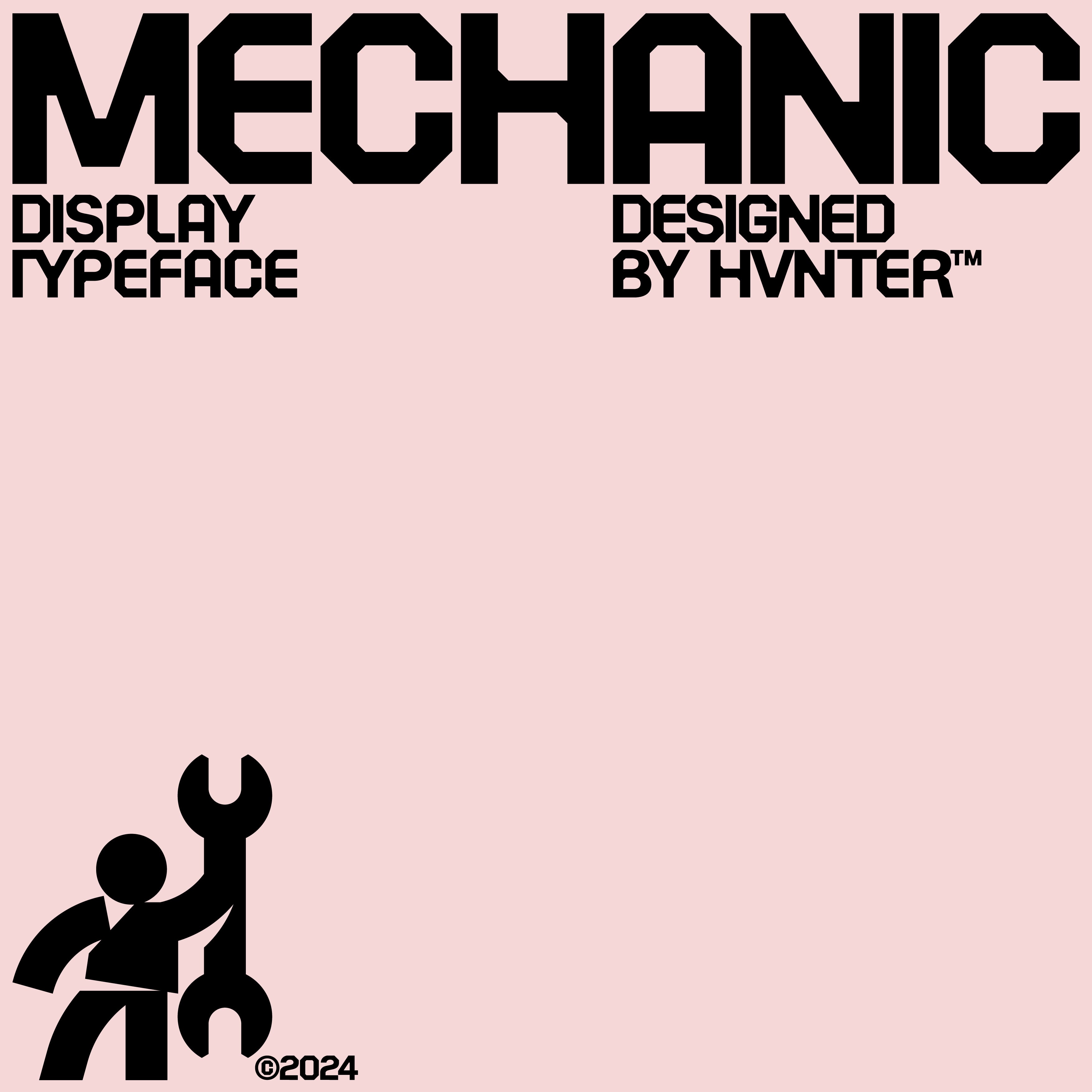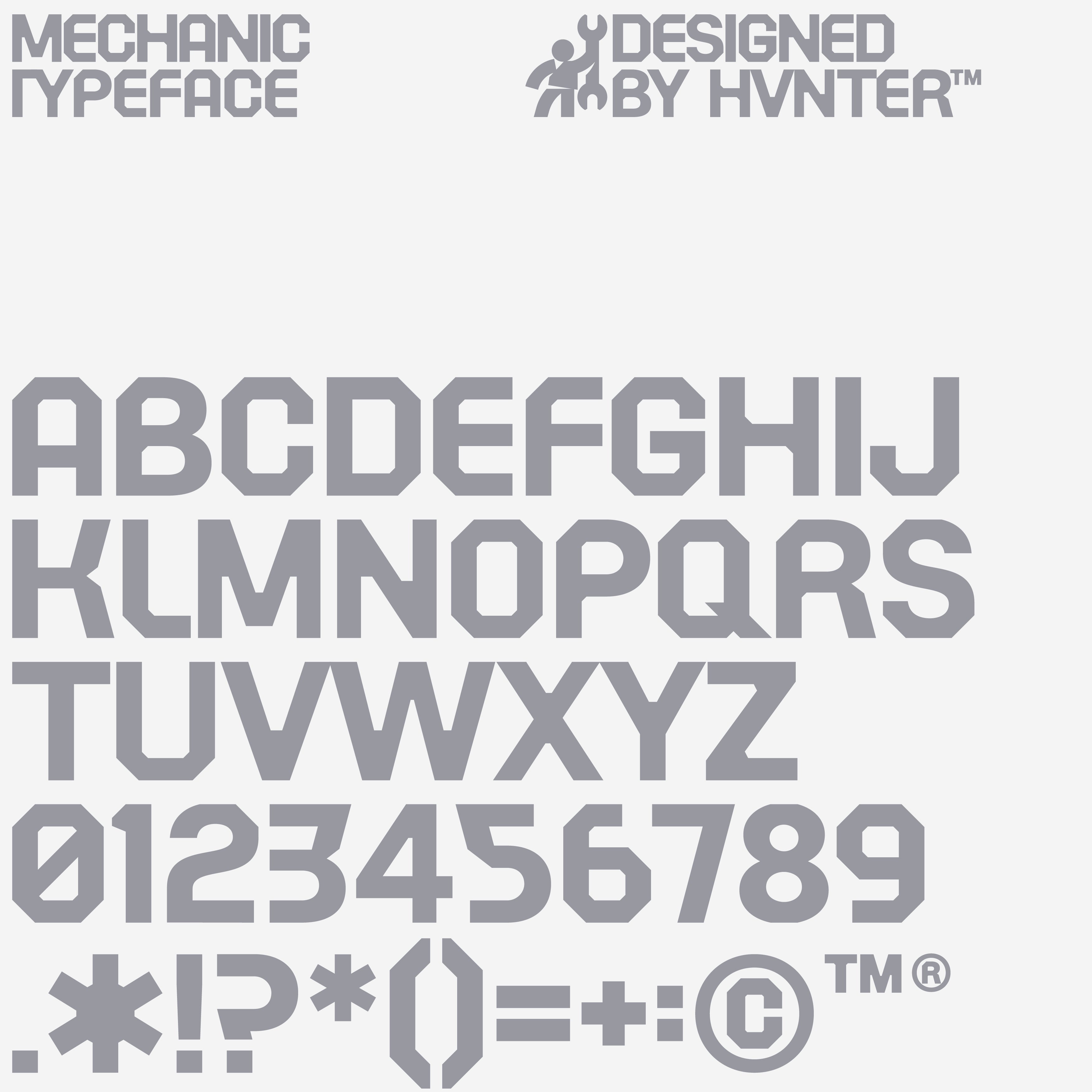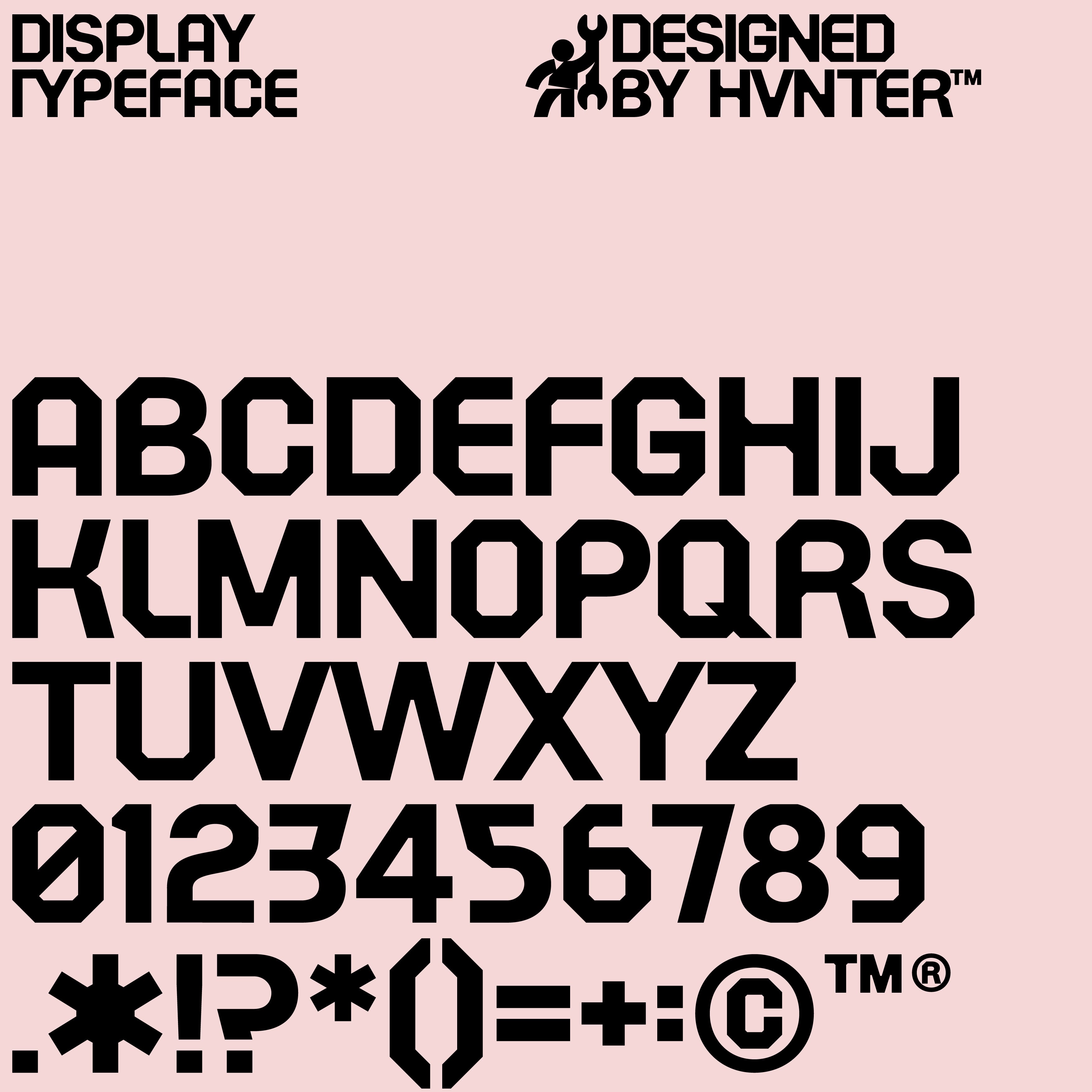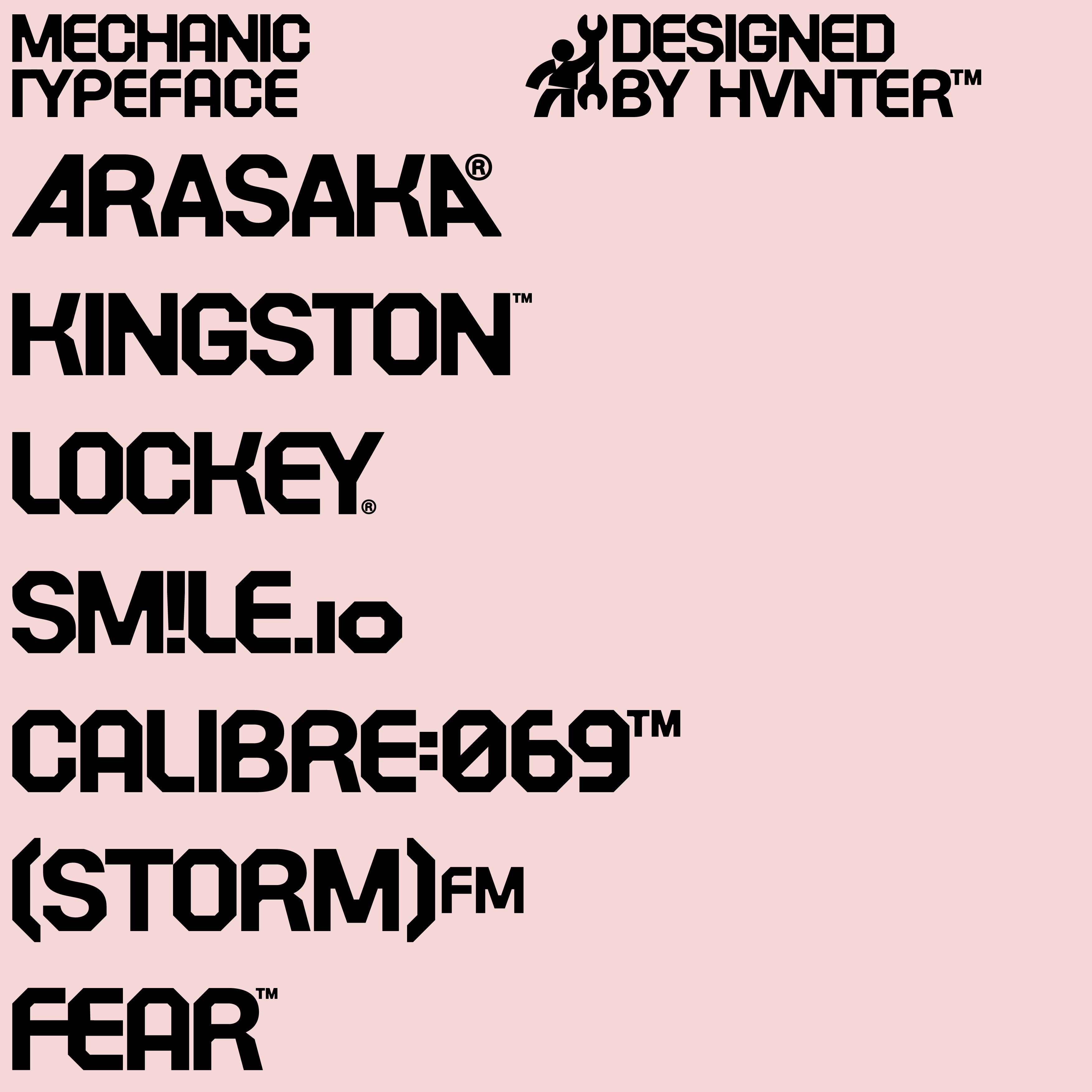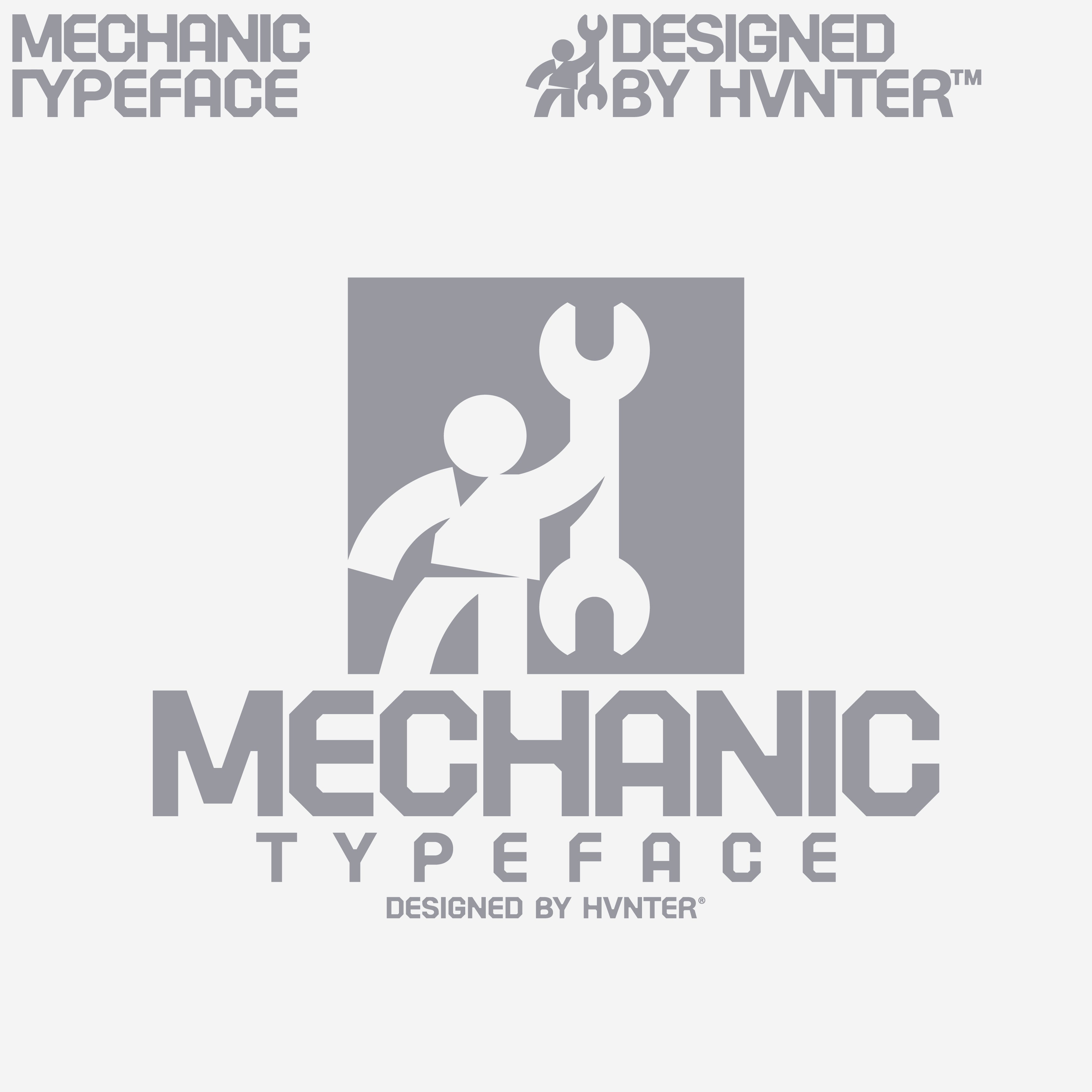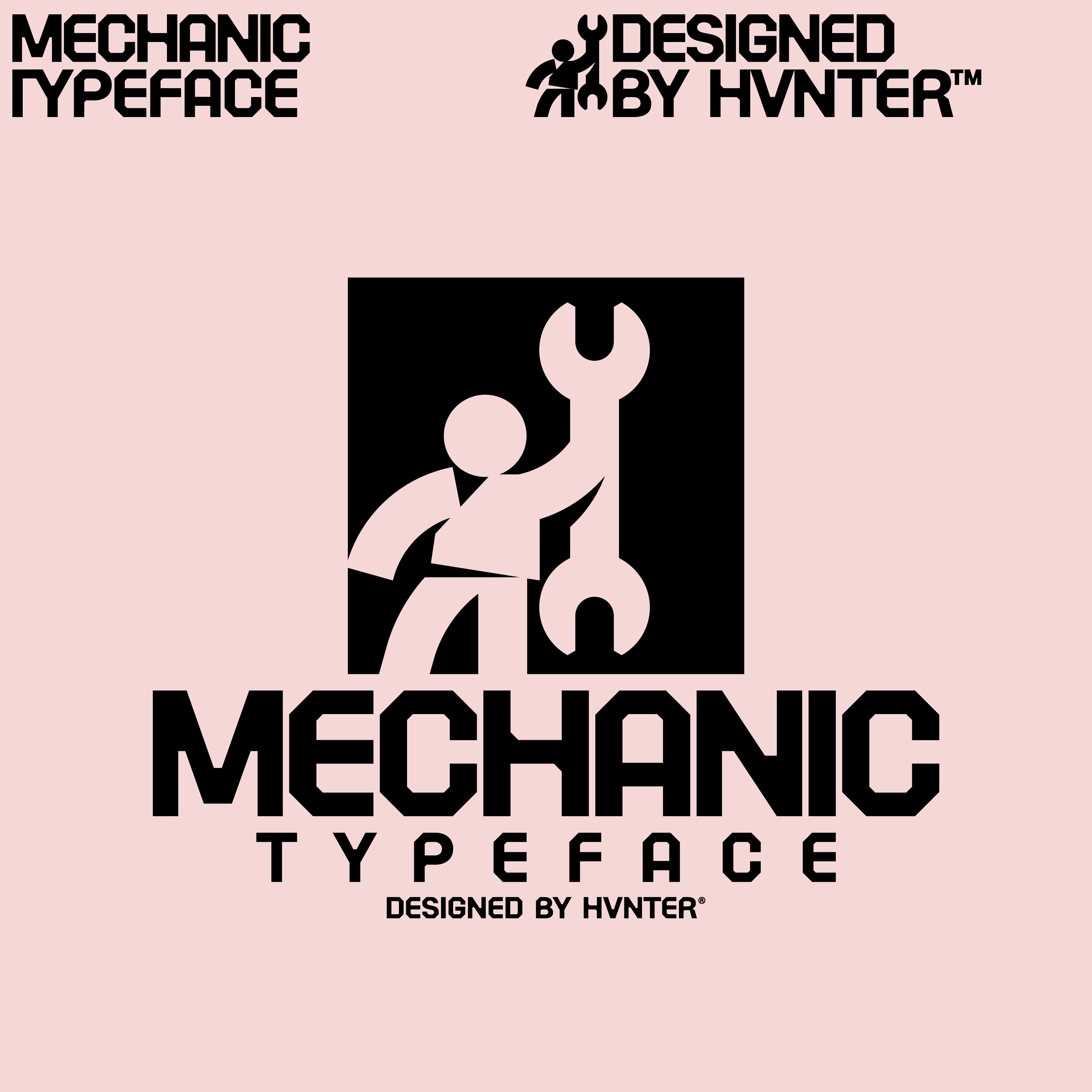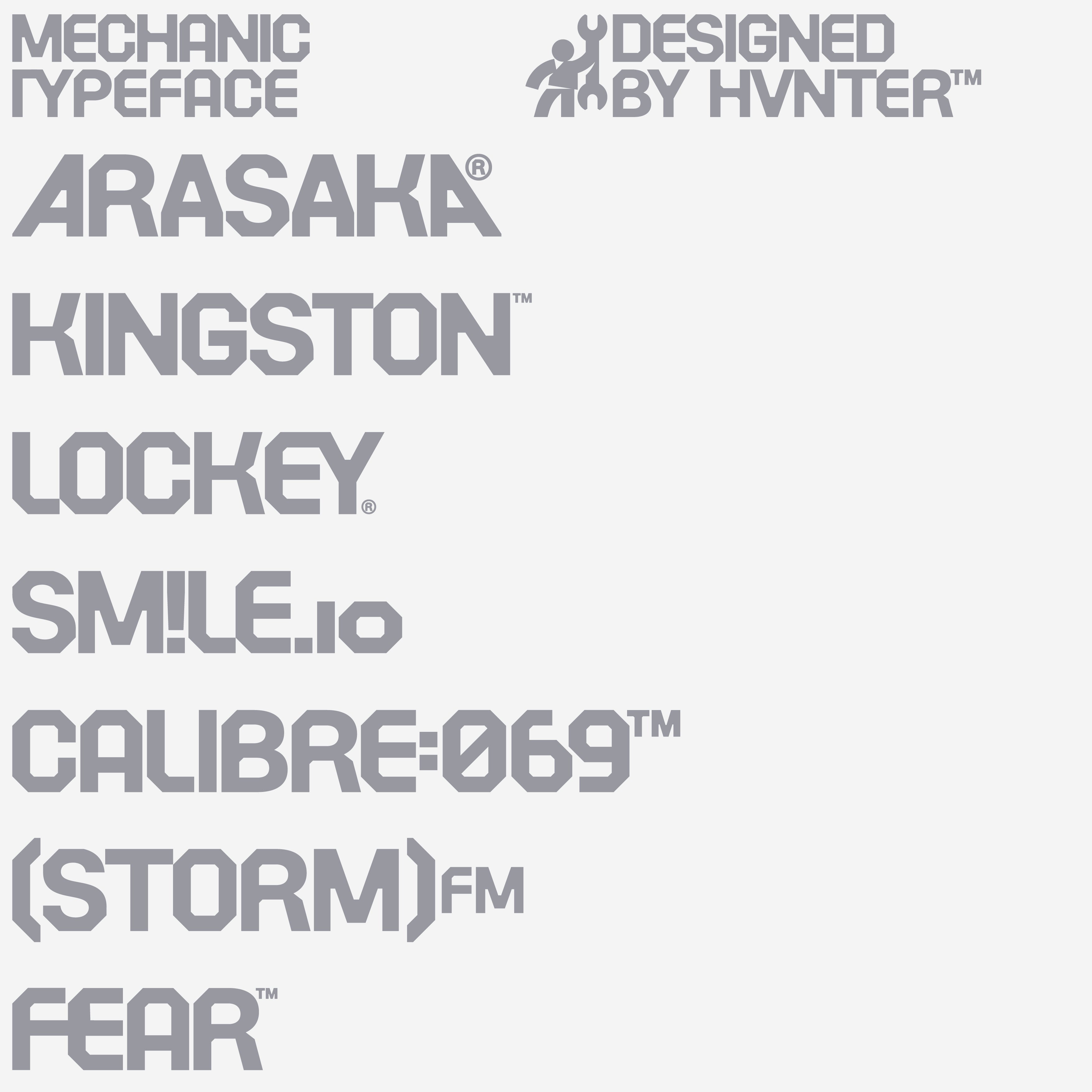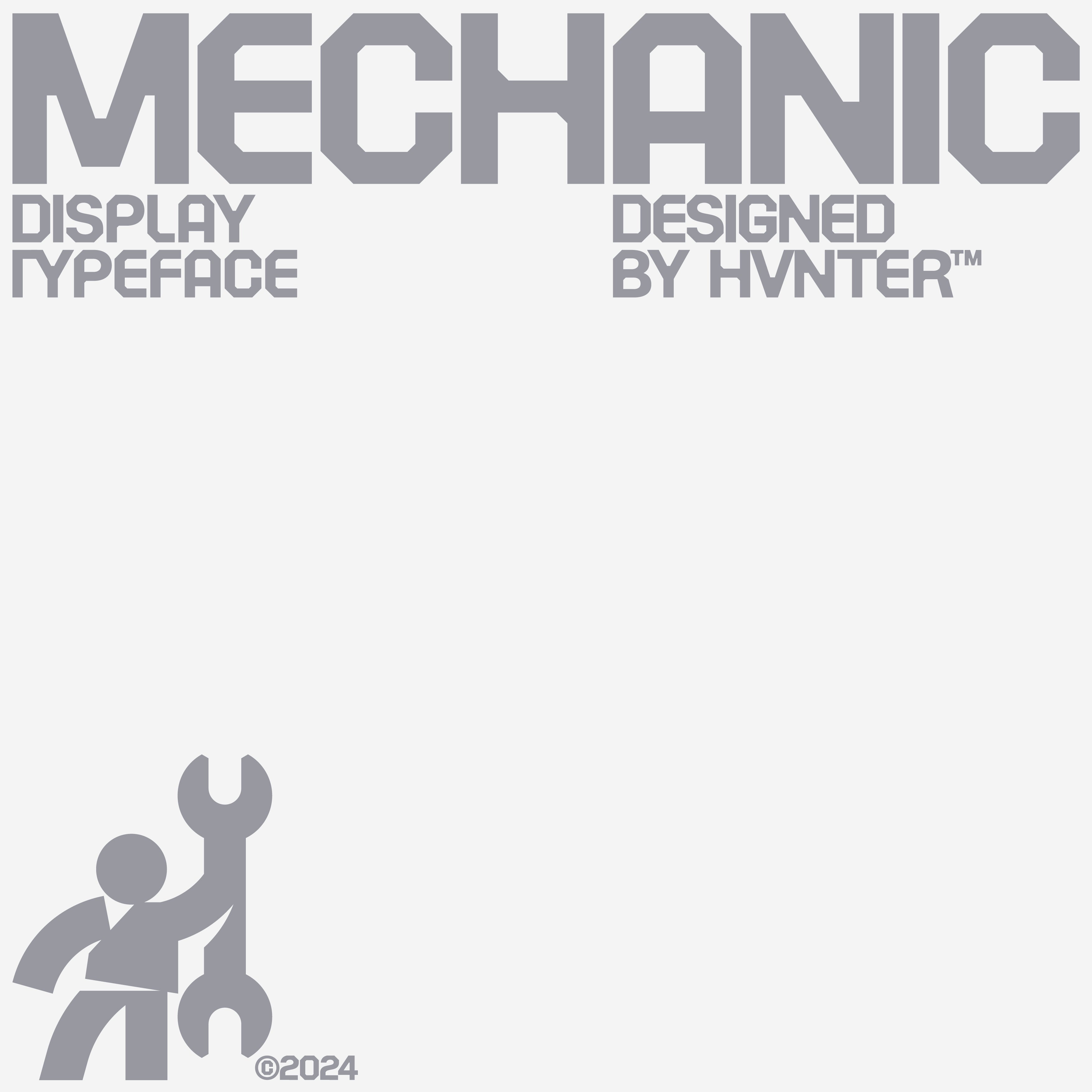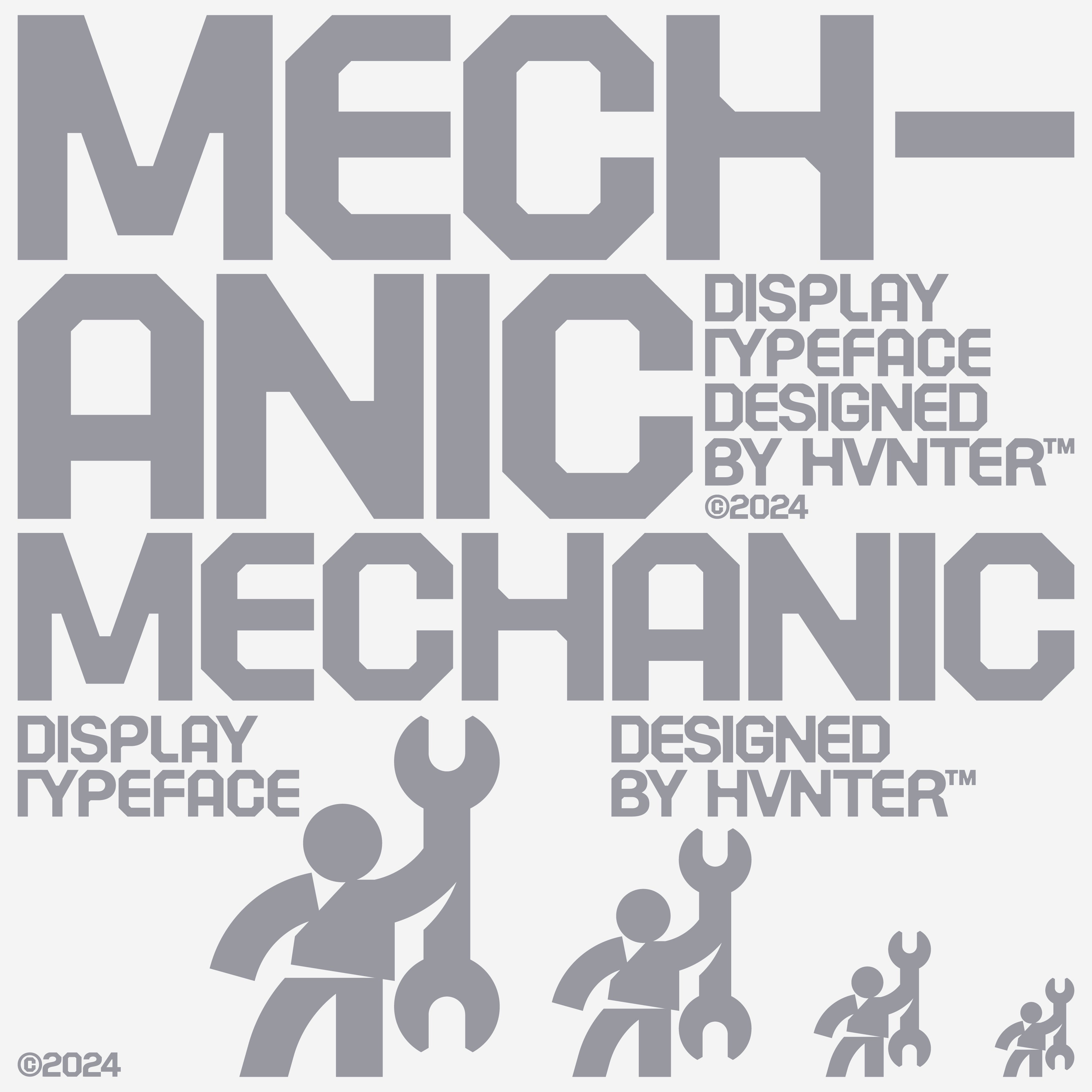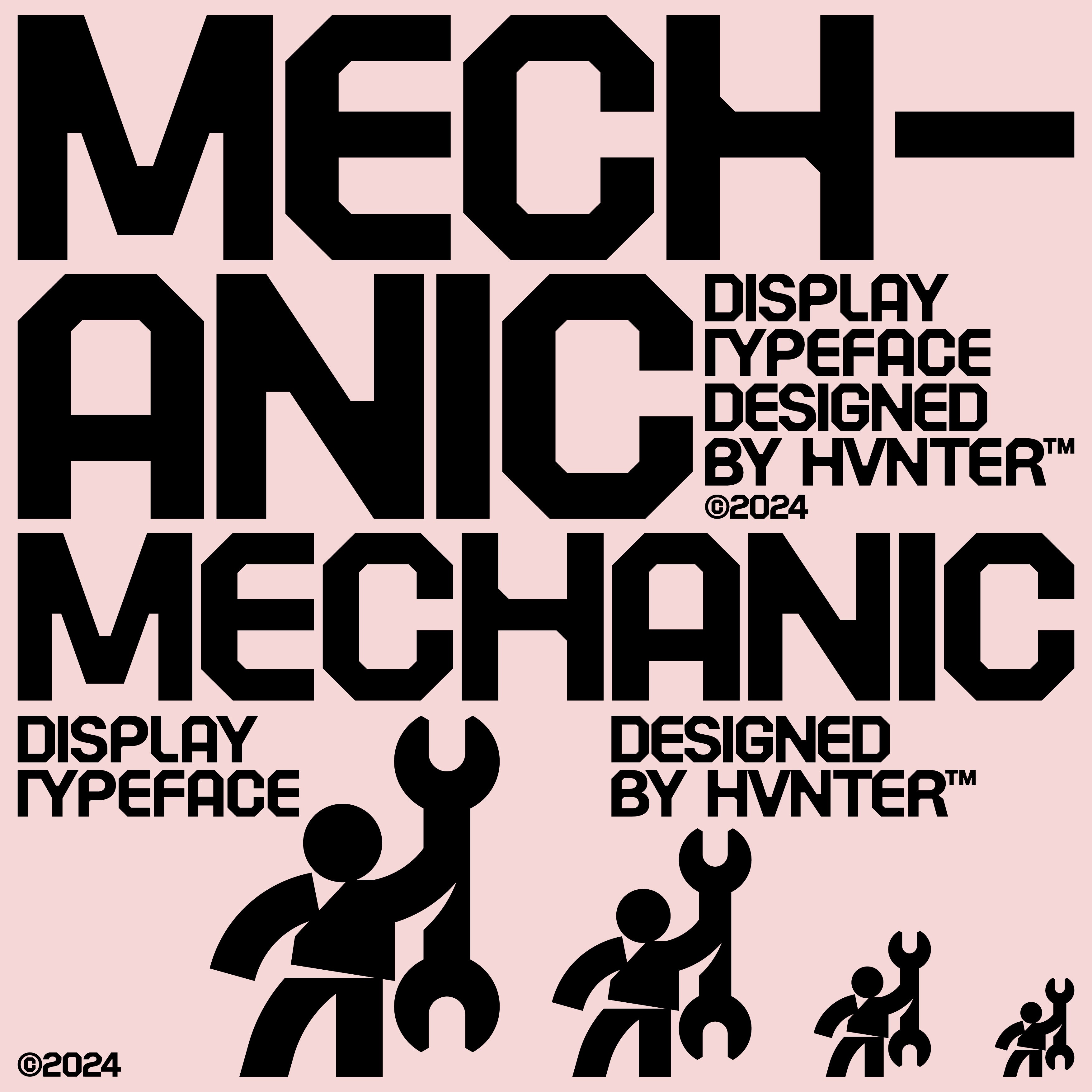
Mechanic Typeface
Subtle industrial typeface.
Includes A-Z, 0-9 + Symbols.
The Mechanic Typeface is a subtle industrial font that includes characters A-Z, numbers 0-9, and symbols. It is designed for both personal and commercial use. The font style is bold, boxy, and grunge, falling under the categories of Cyberpunk, Display, Grunge, Bold, and Sans Serif Fonts. Compatibility details are not specified.